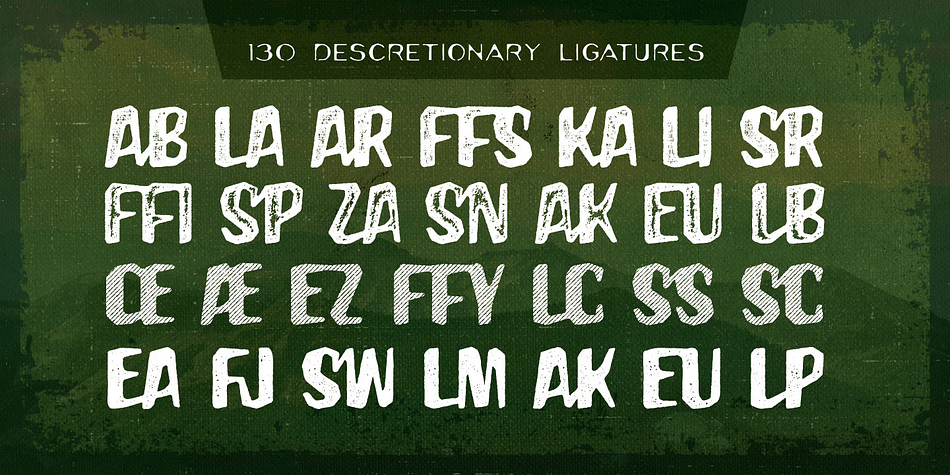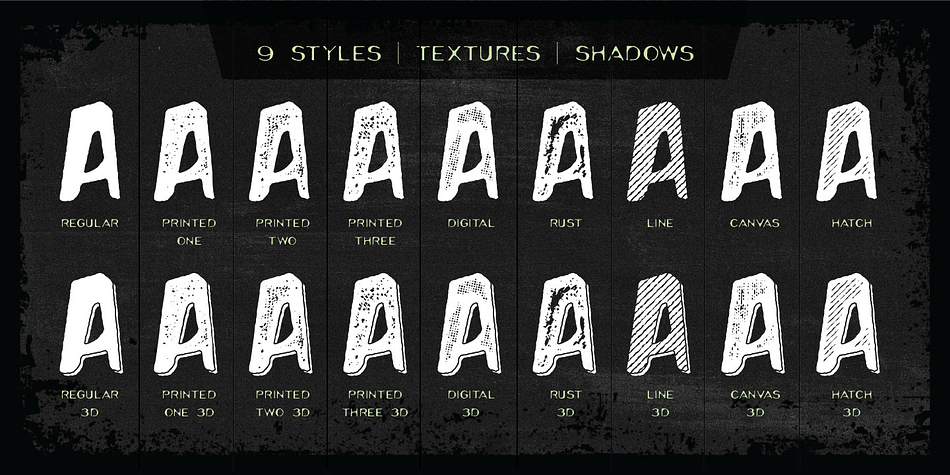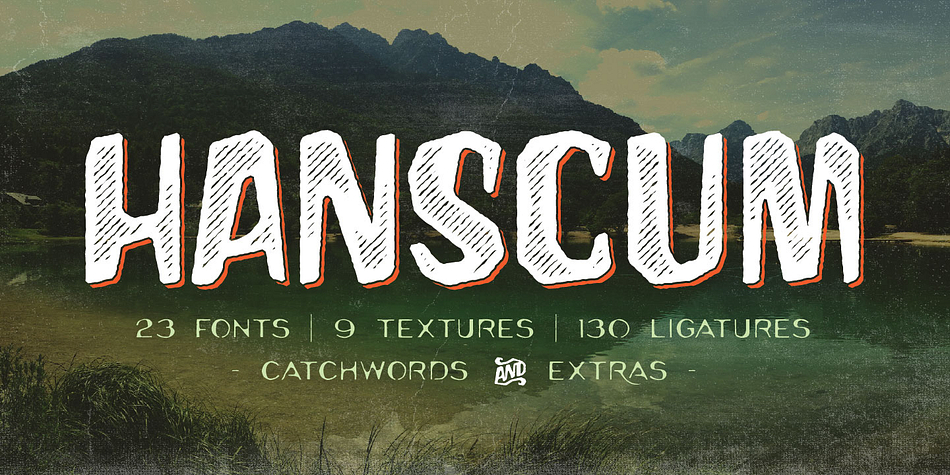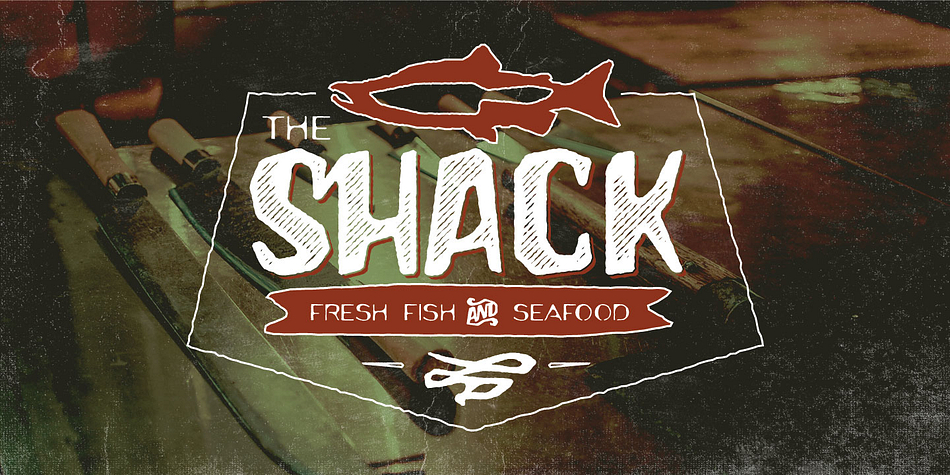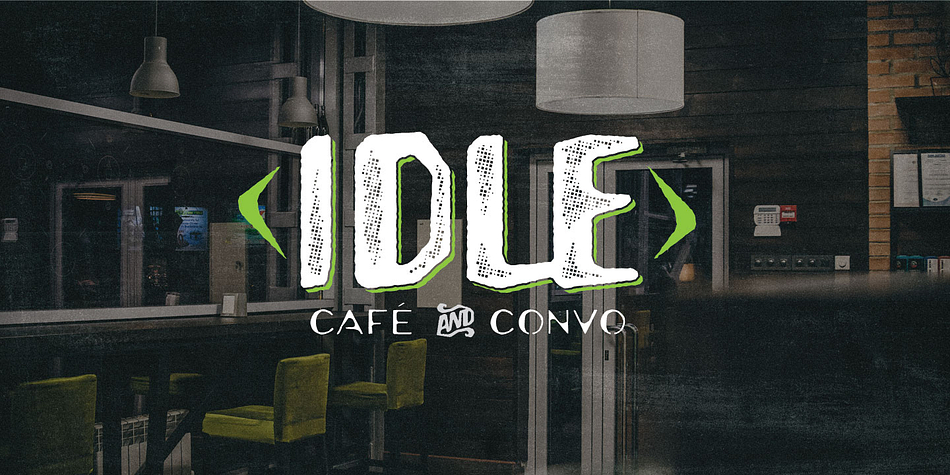
Designed by Jay Hilgert, Hanscum is a grunge, hand display and dingbat font family. This typeface has twenty-three styles and was published by Albatross.
A twenty-three font family. This contains every font in the Hanscum Family.
The Hanscum font family is a playful geometry and nature-inspired display family sporting plenty of distressed and letterpress style textures. With an authentic vintage look and a variety of styles, Hanscum comes with many playful faces and is packed with ligatures.
Also included in this family is a sister subtitle small caps font that compliments the rest of the heavier display styles, also packed with opentype features.
And last but not least, Hanscum comes with extras to play with including stylized catchwords, symbols, and swashes to accompany your layouts.